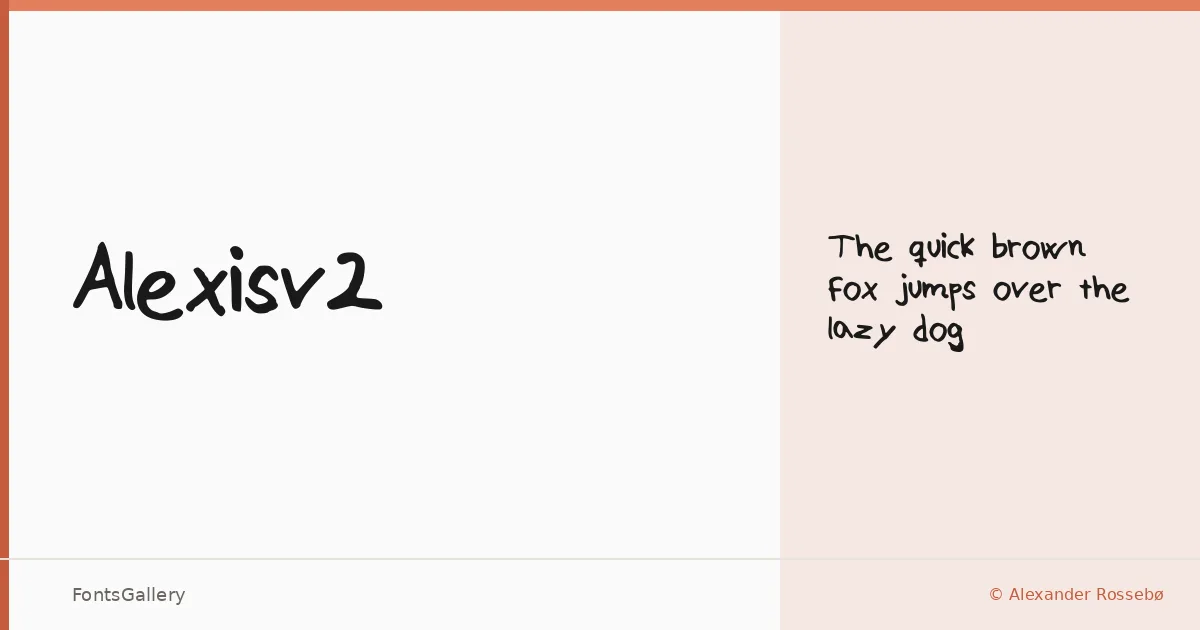
About Alexisv2 Font
There is a loose, personal energy to this script — the kind that reads like someone with genuinely good handwriting dashing off a note with confidence. Alexisv2 was created by Alexander Rossebø and arrives as a single Medium weight in TTF format. The letterforms carry a modern slant with just enough whimsy to feel alive without tipping into novelty territory.
As a handwritten face, it sits comfortably in the playful-yet-polished corner of the category — modern in its flow, whimsical in its details. The single Medium cut means what you see is what you work with: no weight range to navigate, just one expressive voice that either fits your job or doesn't. It covers Latin script in partial range, so check your glyph set if you're working with extended Latin characters. The TTF file is installable with embedding permissions included.
The face earns its keep in branding that wants warmth, invitation cards that need a personal touch, greeting cards, and social media graphics where a handcrafted feel cuts through the noise. It pairs well with the clean rationality of Helvetica to balance its looseness, and works alongside Aresink, Bizantheum, Alexandria, or Canela when the surrounding typographic system calls for more character throughout.